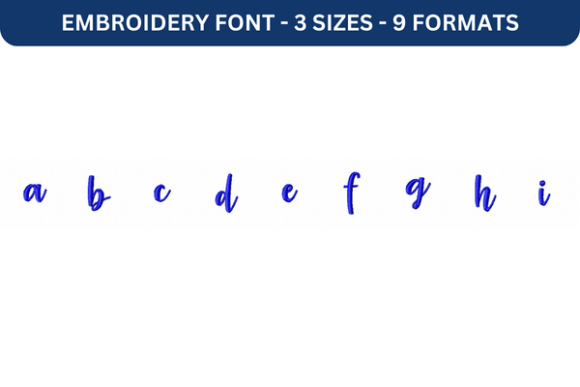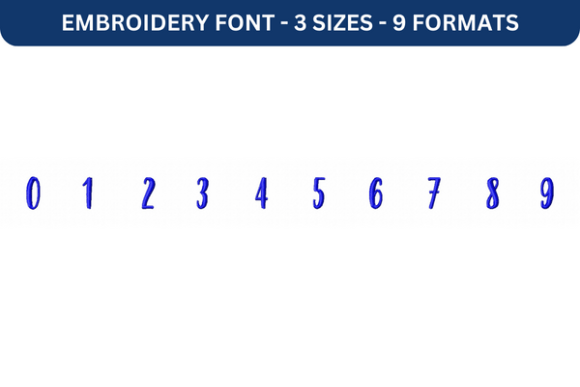
Strawberry Blossom Font Lower a to I
The Strawberry Blossom Font Lower a to I is a versatile machine embroidery design ideal for small business merch, custom apparel, and branded patches. Its elegant yet approachable style makes it perfect for businesses looking to add a touch of personality to their products without sacrificing professionalism.
First Impressions: A Blend of Elegance and Playfulness
From the first glance, the Strawberry Blossom Font Lower a to I exudes a friendly and slightly whimsical vibe. The font’s soft curves and delicate details suggest a handmade or artisanal feel, which can be a powerful tool for businesses aiming to build a warm, inviting brand identity. At the same time, its clean lines and structured layout give it a polished appearance that works well in more formal settings.
This balance between playful and professional makes it an excellent choice for a wide range of small business applications, from back-to-school items to boutique merchandise. Whether used on aprons, tote bags, or embroidered patches, it adds visual interest without overwhelming the design.
Real Business Use: From Patches to Tote Bags
As an embroidery designer, I’ve tested the Strawberry Blossom Font Lower a to I on various fabrics and project types. It performs well on most standard materials, including cotton, polyester, and denim. For small business merch, this font is particularly effective when used as a chest logo, sleeve detail, or cap embroidery. Its readability at different sizes makes it suitable for both large and small designs.
When used on embroidered patches, the font maintains its clarity and charm, making it ideal for uniform accents or product labels. On tote bags, it adds a refined touch that complements both casual and semi-formal styles. For apron embroidery, it provides a subtle yet noticeable branding element that enhances the overall look of the garment.
This machine embroidery design also works well with custom apparel, especially for businesses targeting a younger or creative demographic. Its soft aesthetic pairs nicely with other decorative elements, allowing for cohesive branding across multiple product lines.
Where to Use It Carefully
While the Strawberry Blossom Font Lower a to I is highly adaptable, there are certain scenarios where caution is advised. On small patch sizes, the font may become too cramped, reducing legibility. Similarly, on cap fronts or curved surfaces, the lettering might appear distorted if not properly adjusted.
For high stitch density areas or detailed outlines, this font could require additional stabilization to maintain quality. When working with textured fabric or dark uniforms, the contrast between thread colors and the background should be carefully considered to ensure visibility.
Businesses planning to use this embroidery file on items that will undergo frequent washing should test the design for durability. Proper stabilizer use and correct hoop size are essential to prevent puckering or distortion during the embroidery process.
Impact on Brand Identity and Customer Trust
Brand identity is crucial for small businesses, and the Strawberry Blossom Font Lower a to I offers a unique way to stand out. Its consistent style helps reinforce brand recognition, making it easier for customers to identify and remember your products. This consistency is especially important for Etsy sellers, handmade brands, and craft businesses that rely on visual cues to build trust.
Using this font on product packaging, customer gifts, or event merch can elevate the perceived value of your offerings. It adds a premium feel to handmade products and ensures that every embroidered detail aligns with your brand’s visual language.
For commercial embroidery projects, the Strawberry Blossom Font Lower a to I can be a valuable asset. Its versatility allows it to integrate seamlessly with other design assets, ensuring a cohesive look across all branded merchandise.
Practical Tips for Embroidery Designers
Before finalizing any project, I recommend testing the Strawberry Blossom Font Lower a to I in black and white to assess its clarity and visual impact. Check how it looks at small patch sizes and review thread color contrast to ensure it stands out on different fabrics.
Inspect the spacing between letters and confirm that the hoop size accommodates the design without distortion. Testing the embroidery file on real fabric is always a good idea, as it can reveal issues that aren’t apparent on a digital mockup.